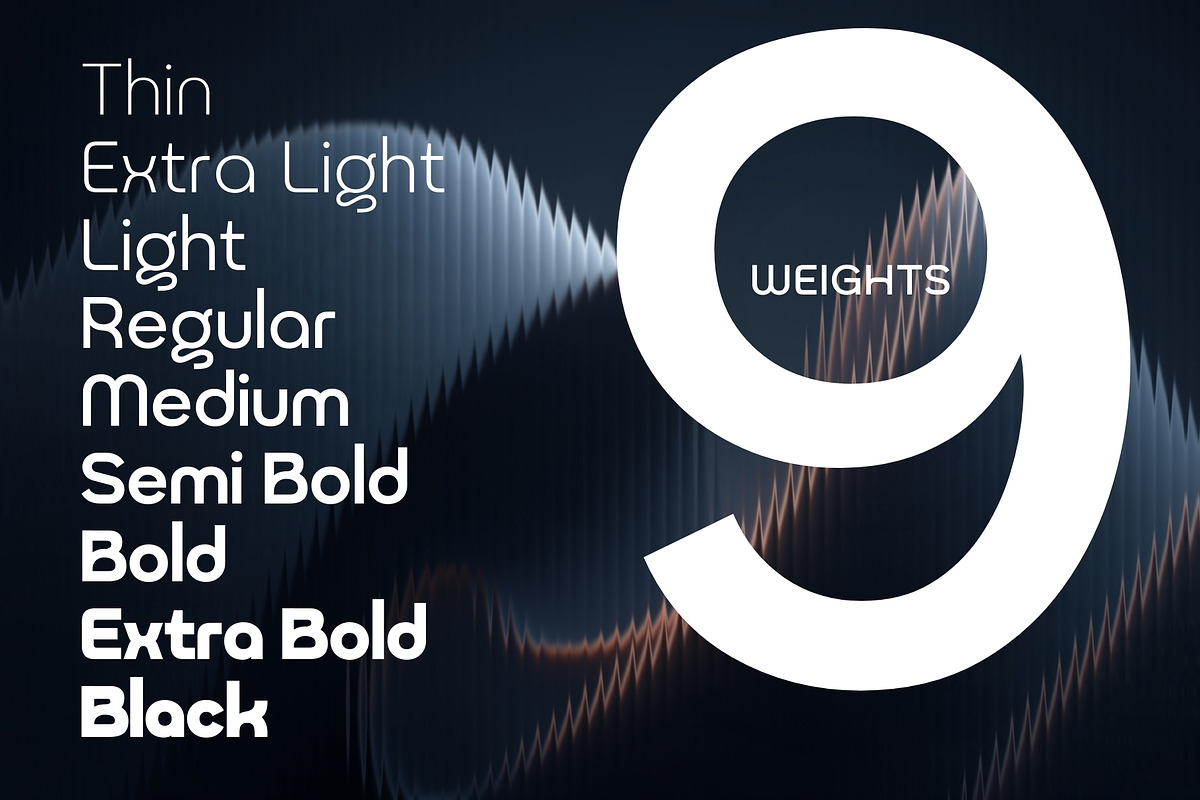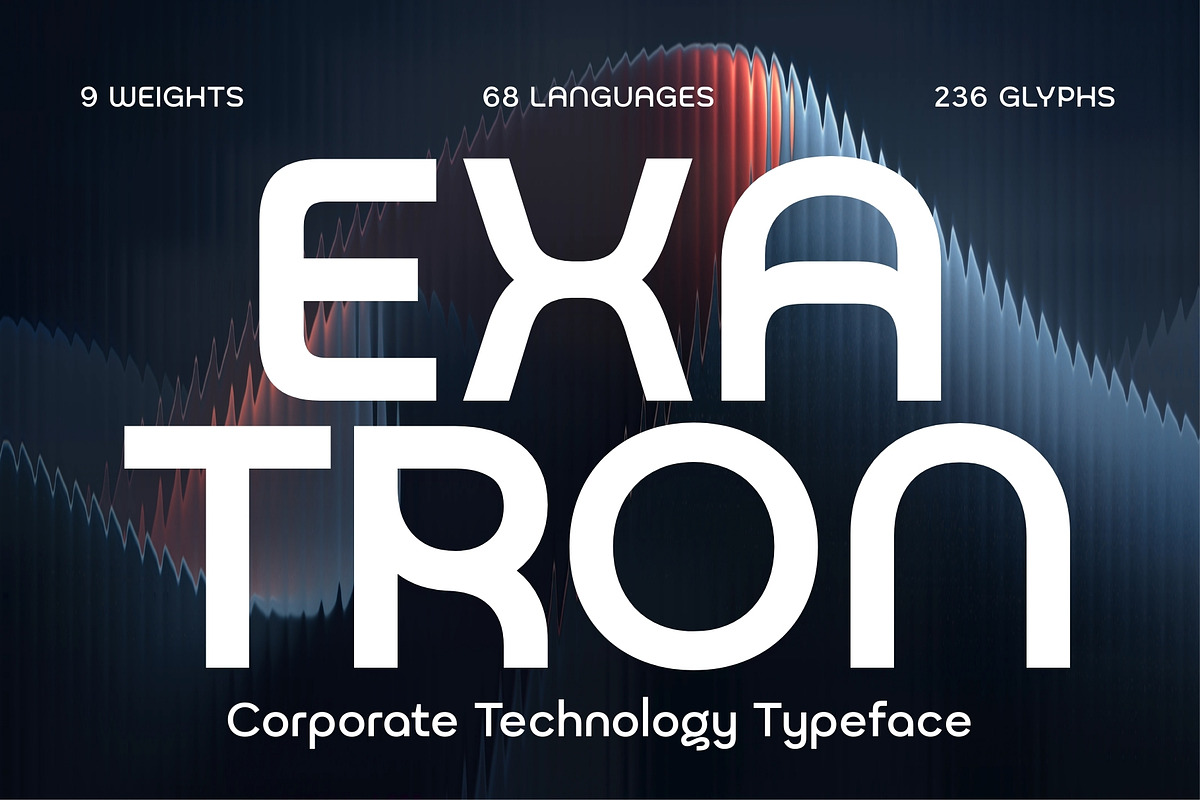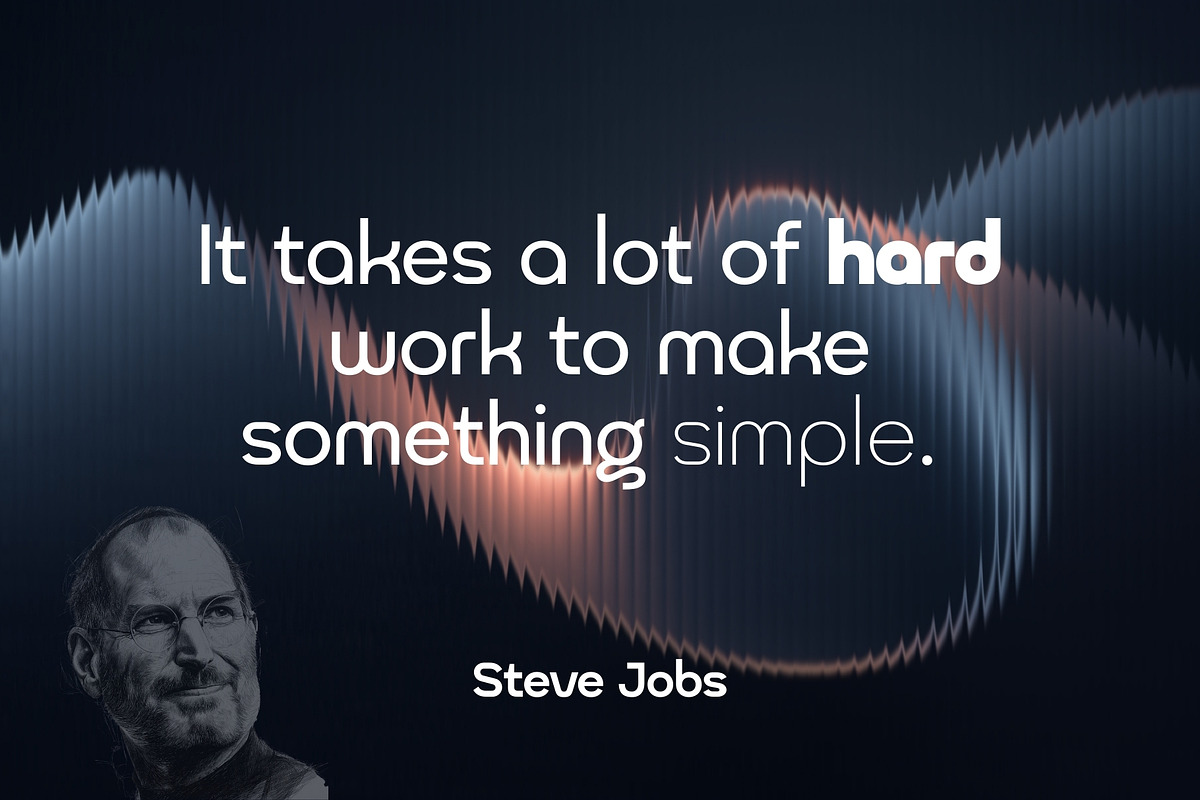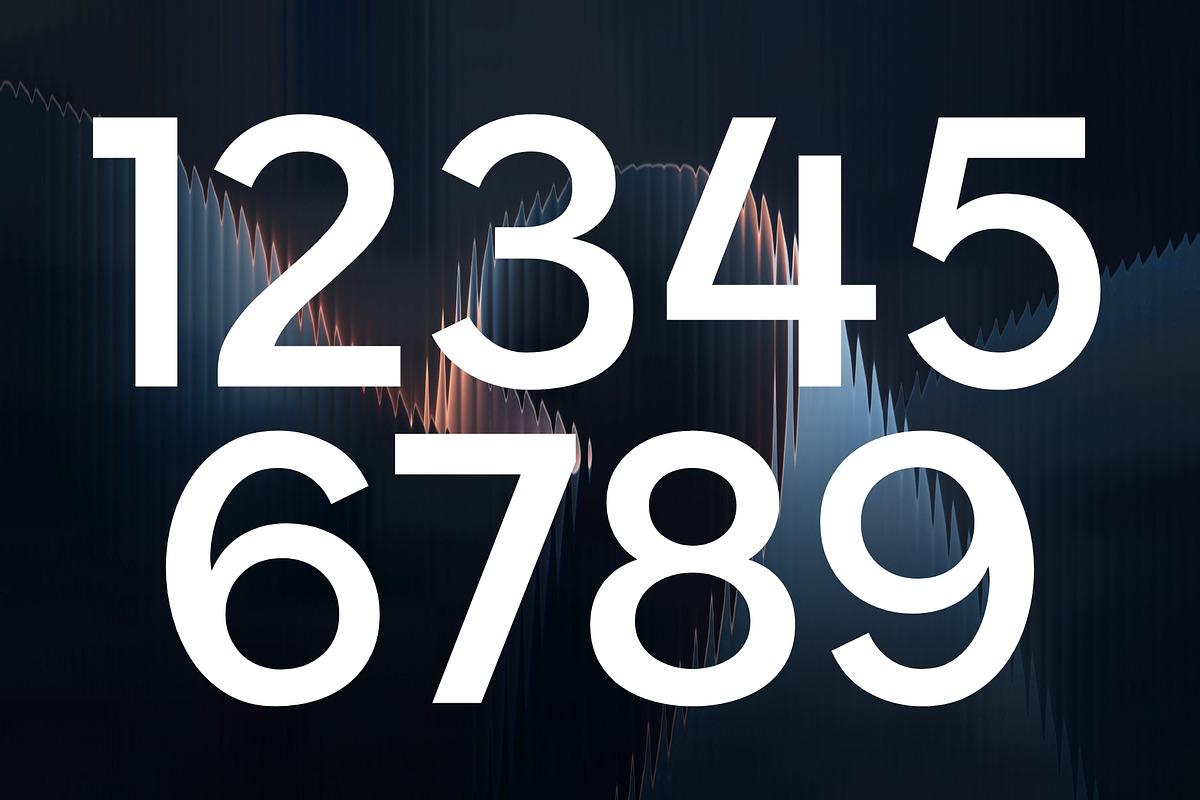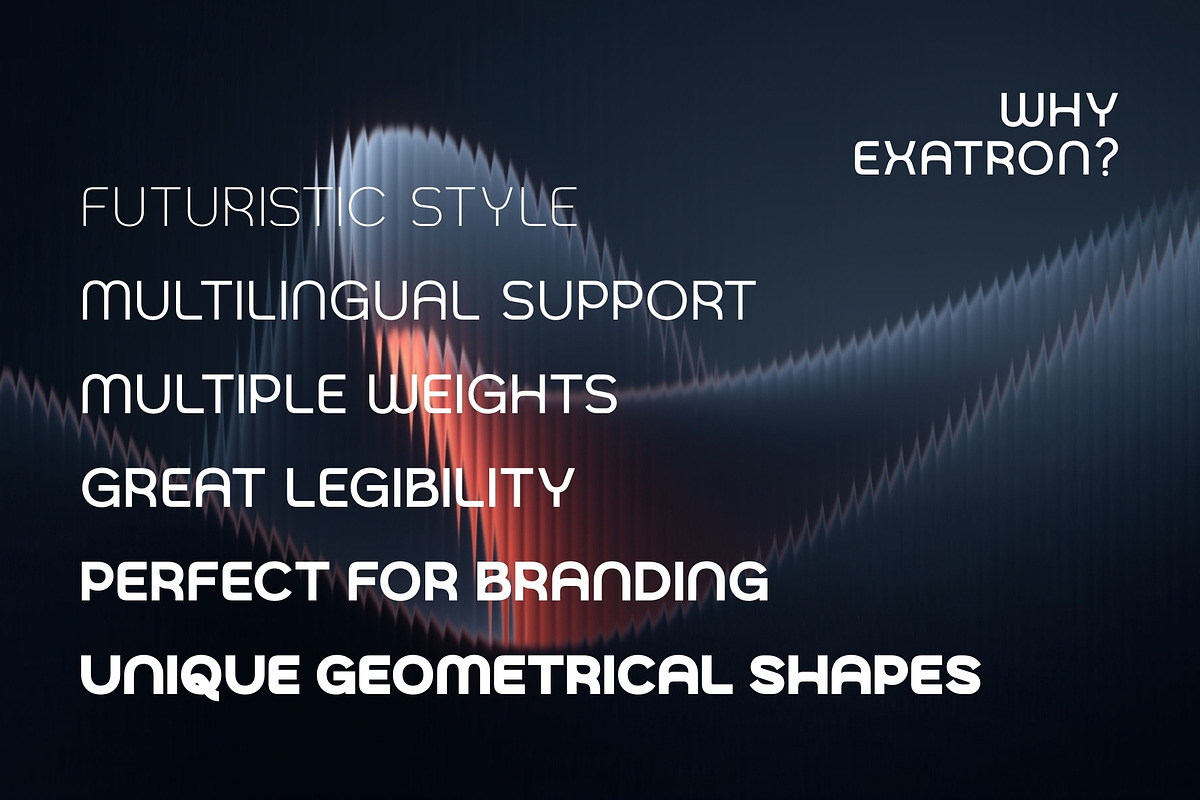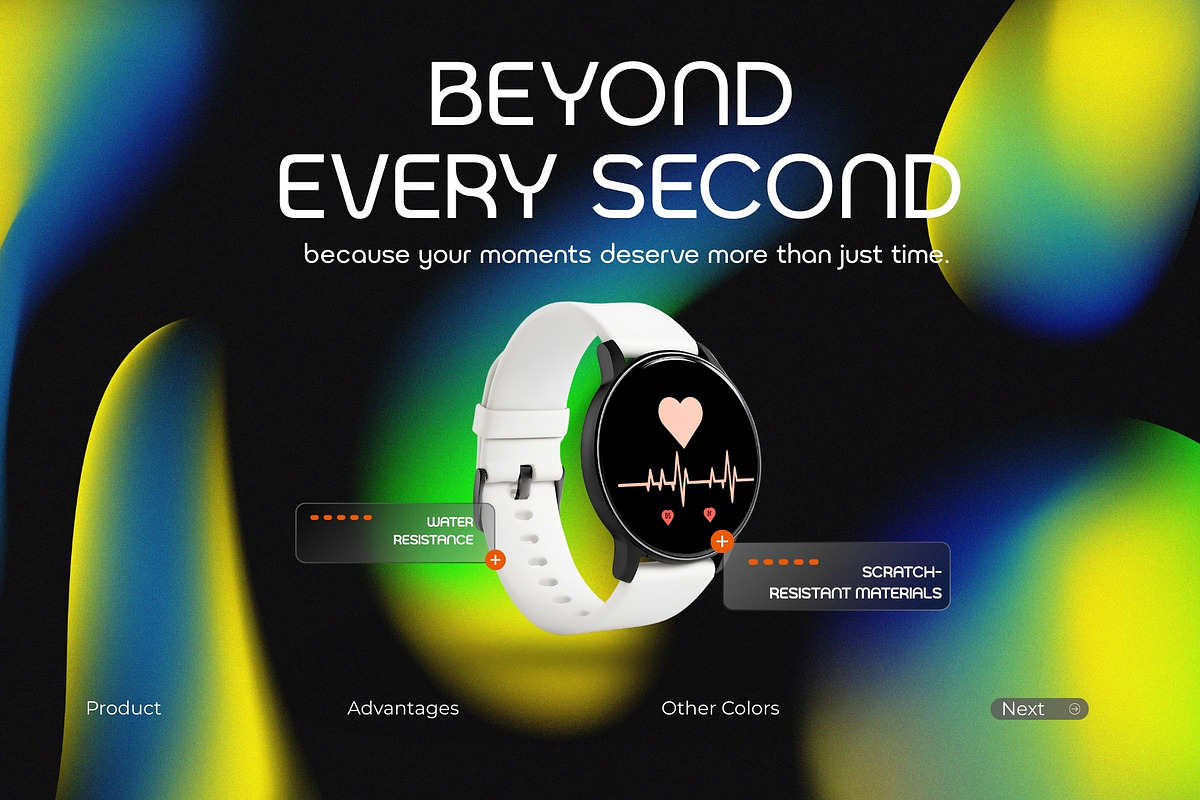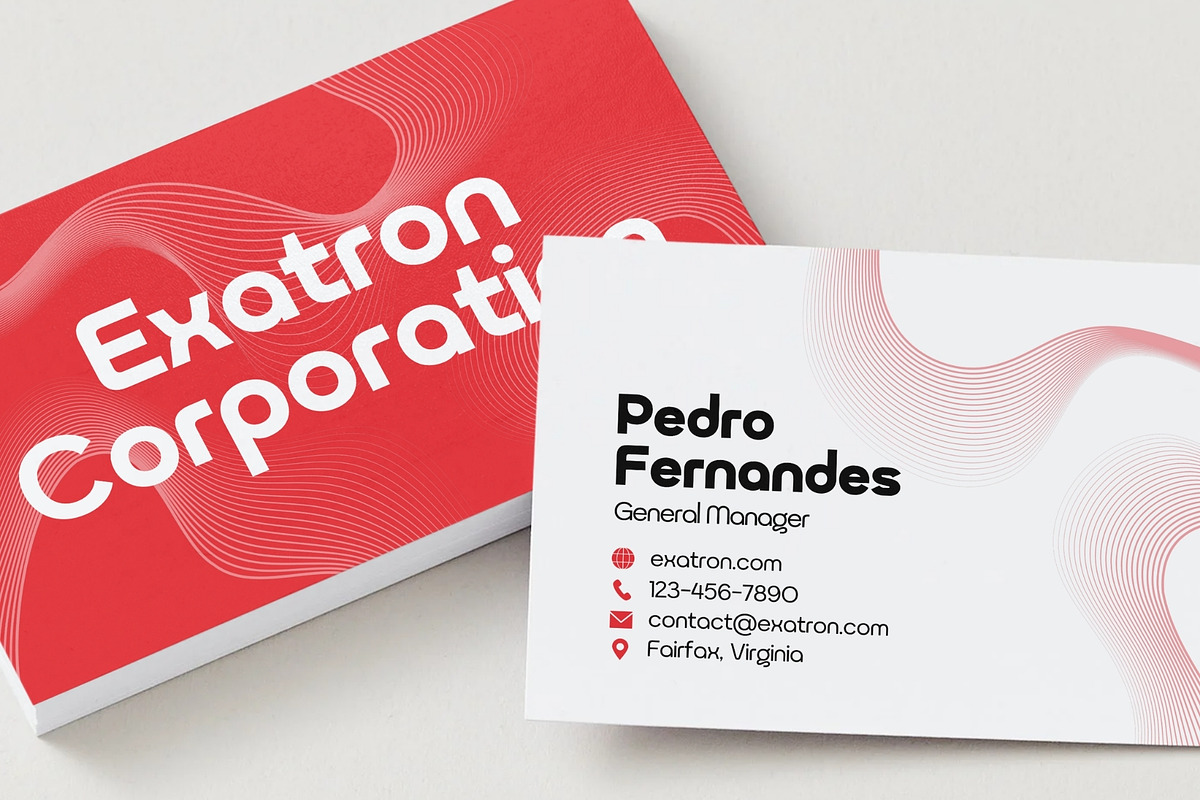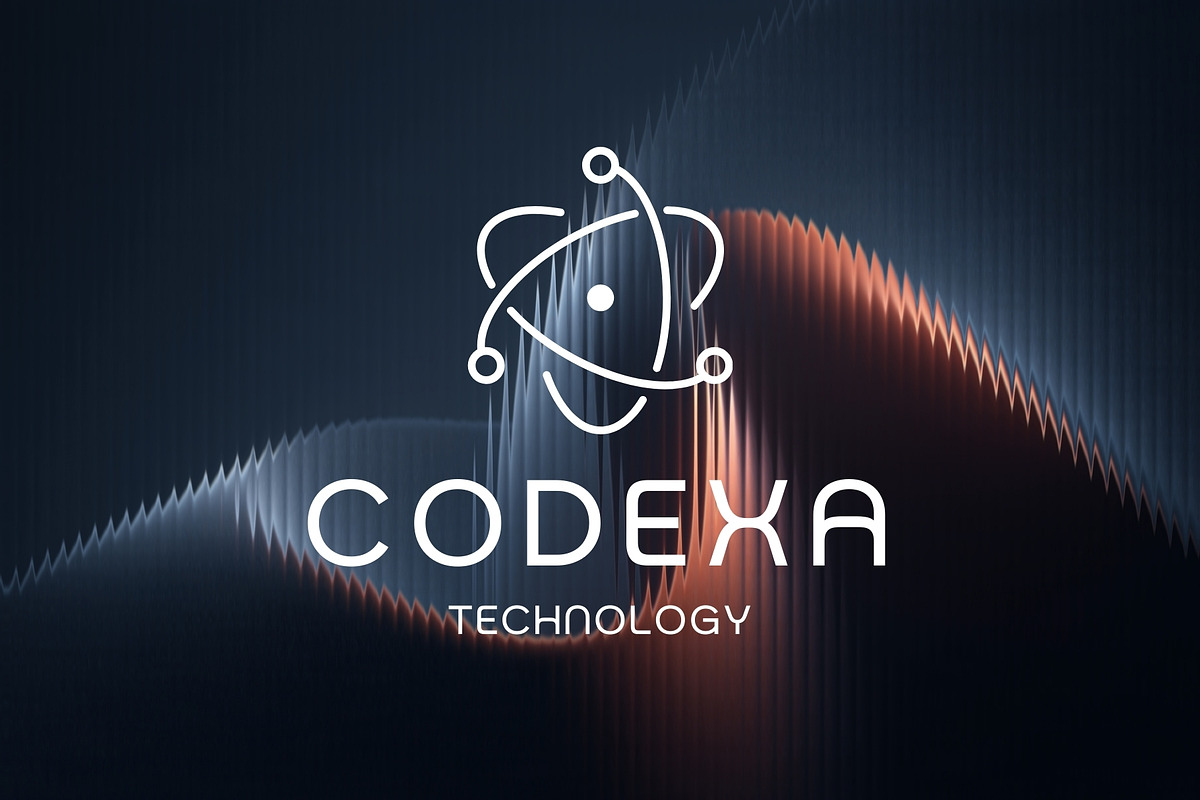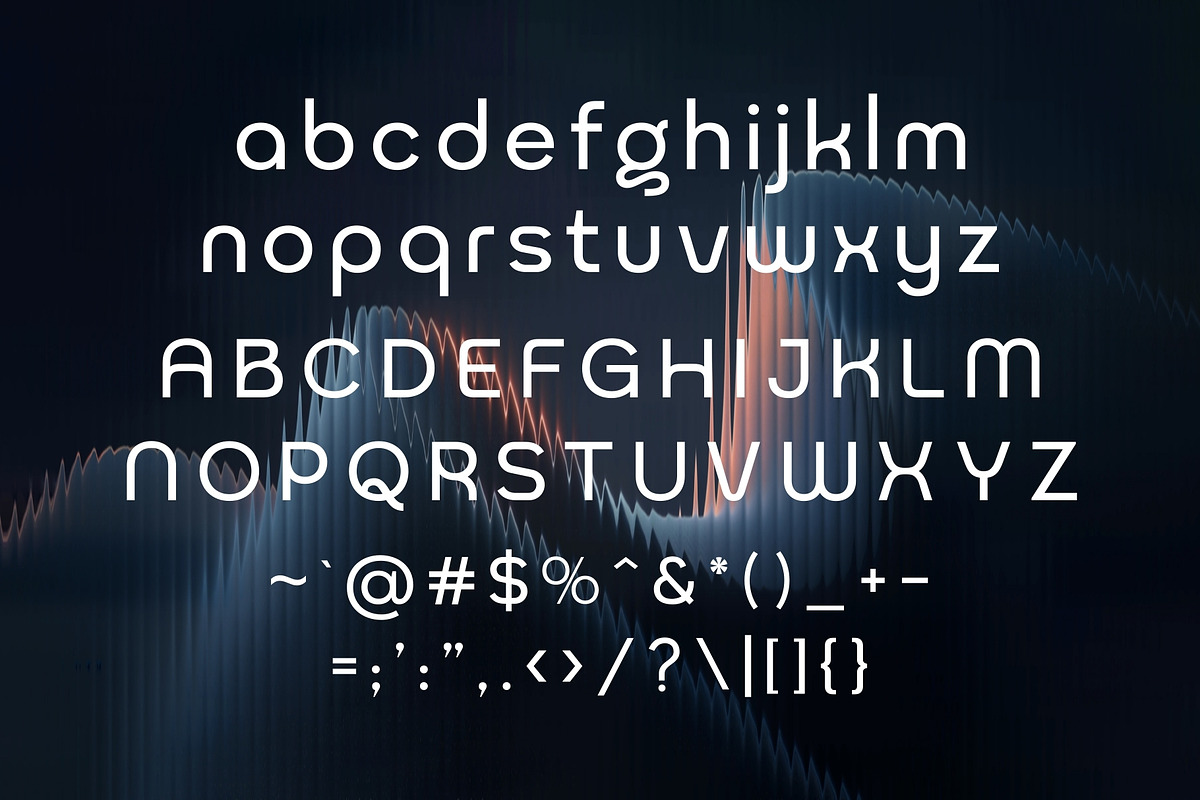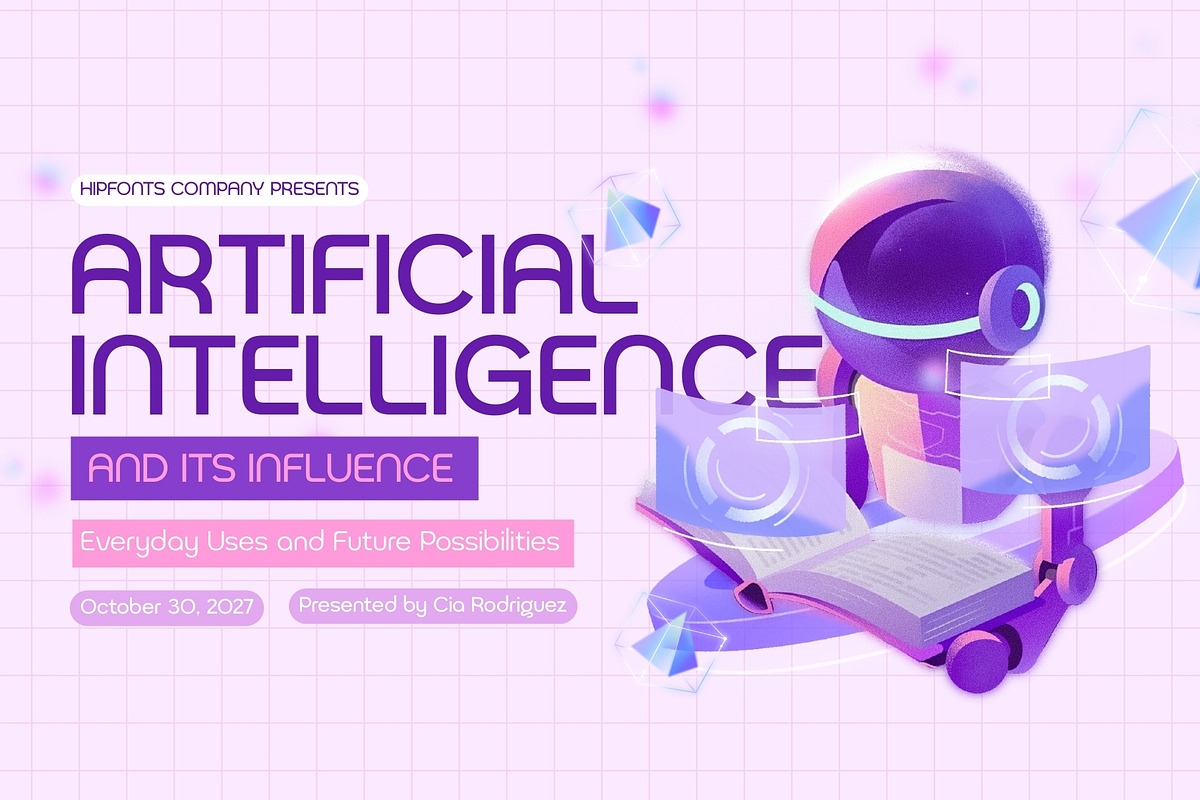
Exatron - Corporate Technology Type
Step into the future of professional design with Exatron, a sleek corporate technology typeface built for today’s fast-moving, digitally driven world.
Engineered with precision and clarity, Exatron blends clean geometry with contemporary minimalism to create a powerful visual voice for modern businesses. Its balanced structure and refined letterforms communicate innovation, stability, and forward-thinking — making it the perfect foundation for brands that want to look smart, confident, and future-ready.
Designed for versatility, Exatron adapts seamlessly across both print and digital environments. Whether you're shaping a tech startup identity, building a corporate website, or designing polished business materials, this typeface ensures consistency and sophistication at every touchpoint.
With its professional tone and modern presence, Exatron empowers your brand to speak the language of technology — clearly, confidently, and with authority.
- Tech startup branding
- Corporate identity systems
- SaaS platforms
- Business presentations
- Websites & UI design
- Fintech branding
- App interfaces
- Digital marketing materials
Exatron isn’t just a font — it’s a visual system built for innovation-driven brands.